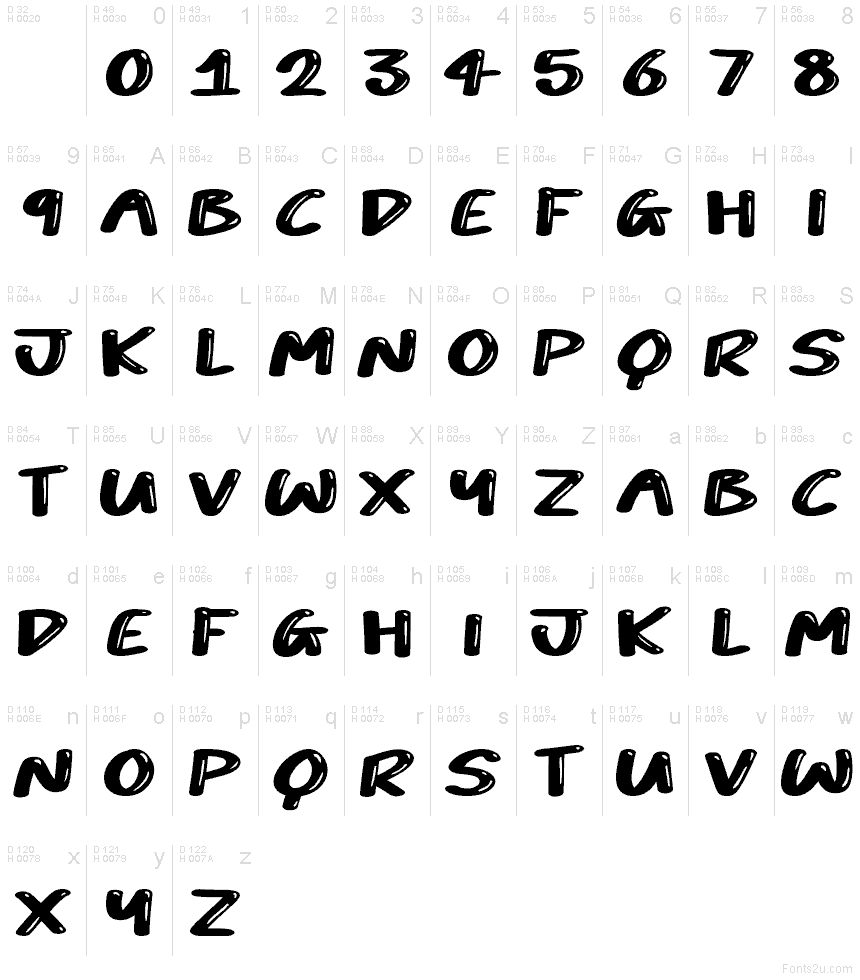
Christian Friends 3D
Christian Friends 3D font by JSH creates is a bold display font with cartoon styles. Every characters has an artistic and casual hand-drawn appearance reminiscent of doodling. Other noticeable qualities include ruggedness, liveliness, and an expanded width all rounded up with 3D elements for a unique effect.